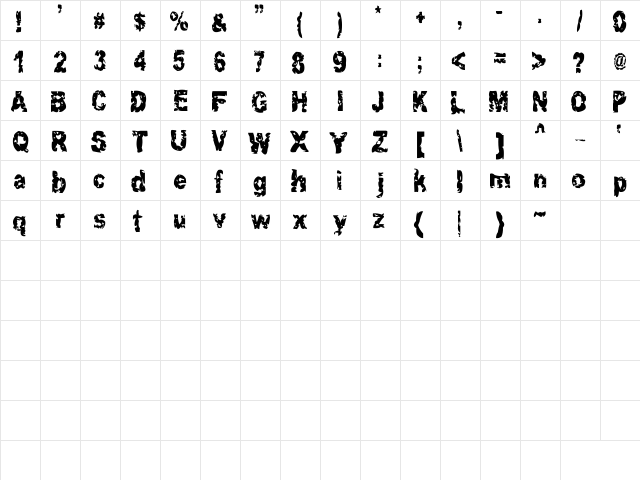
Hacknslash Regular
Design Context for Hacknslash Typeface
Hacknslash is a composed and adaptable typeface that performs quietly and consistently across a wide range of design contexts.